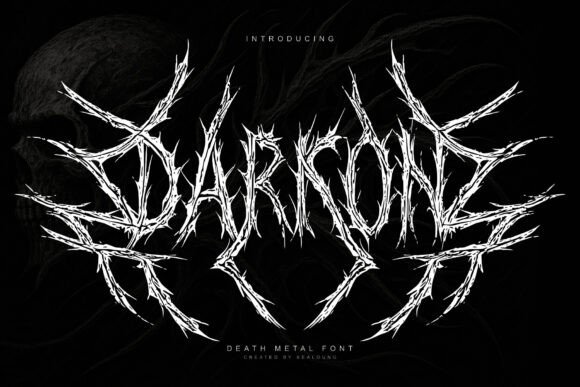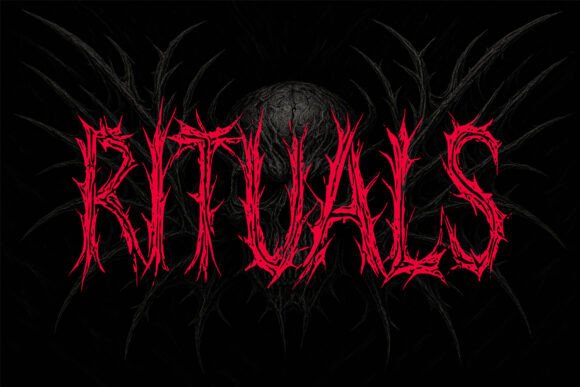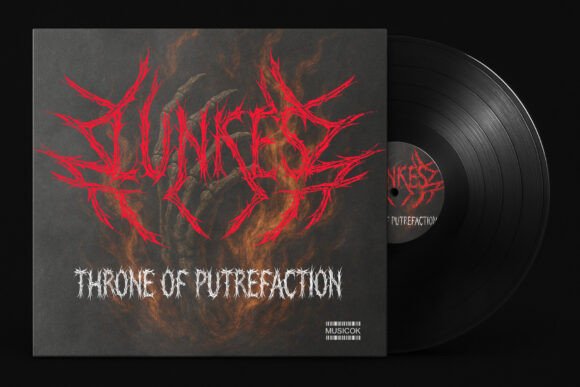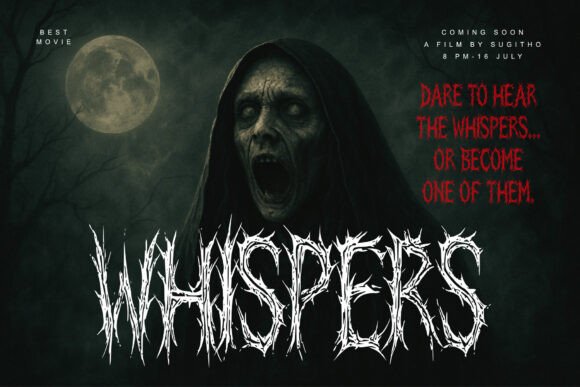
Darkon Font: Unleash a Sinister Typography for Grunge Logo Design
About the Darkon Font
The Darkon Font offers a perfect balance of form and function for your design needs. Unleash the unholy force of darkness with Darkon—a modern death metal typeface born from the deepest voids of the underworld.
Designed for creators who thrive on extremity, Darkon delivers a sharp, sinister visual identity that captures the raw energy of death metal, extreme metal, and underground subcultures.
Darkon excels in headline applications, particularly for projects demanding a bold and aggressive presence. It’s ideal for posters, album art, branding for extreme music acts, or edgy apparel lines. Avoid using Darkon for body text or lengthy passages; its highly stylized forms compromise readability at smaller sizes.
Its strong, angular forms lend themselves well to pairing with clean sans-serif fonts like Montserrat or Futura for contrast, creating a balance between aggression and legibility. For a more dramatic effect, consider a contrasting script font with softer curves to offset Darkon’s harsh edges.
Darkon’s personality is undeniably rebellious and aggressive. It projects power and intensity, making it an effective tool for brands targeting a niche audience who appreciate this aesthetic.